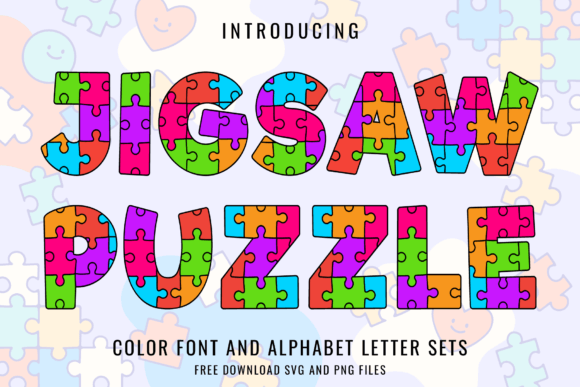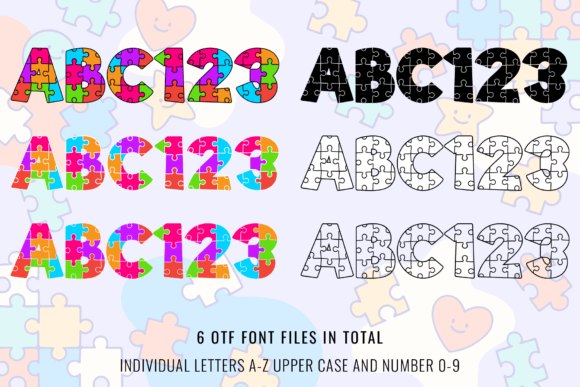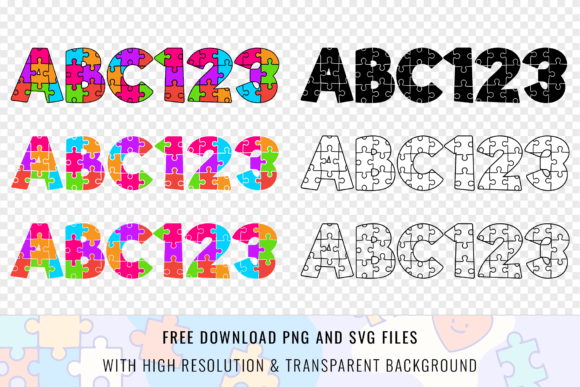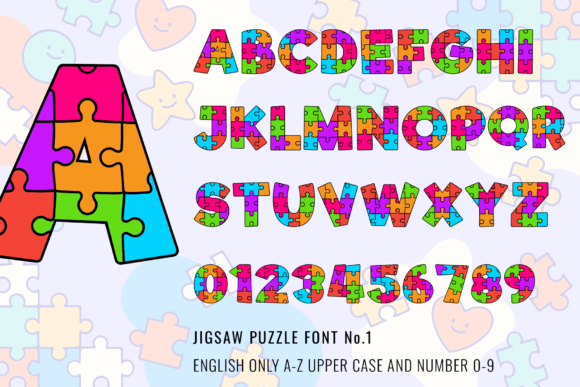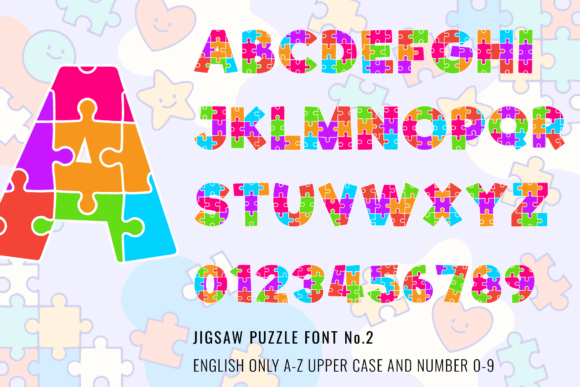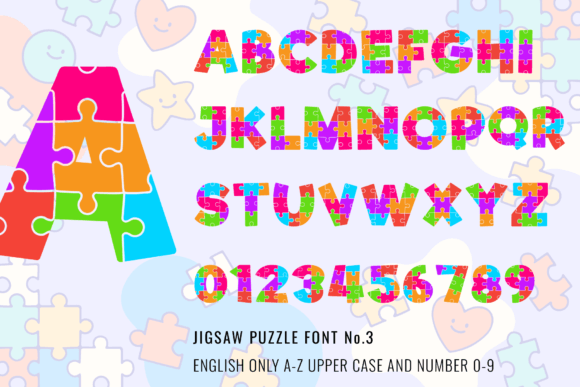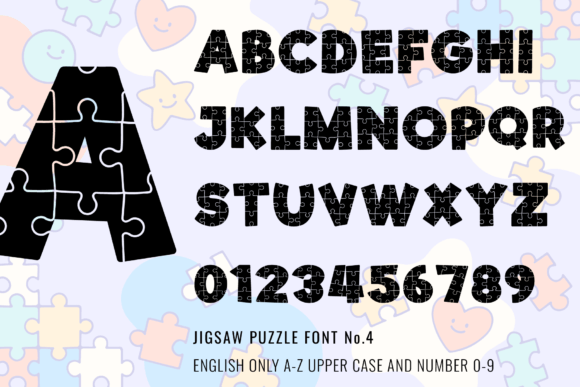
The Fun Never Ends with the Jigsaw Puzzle Font
Have you ever stared at a blank canvas, unsure of where to start, but suddenly a spark of creativity hits you? Maybe it’s the sound of kids giggling in the background or the smell of freshly brewed coffee that gets those creative juices flowing. Whatever it is, we’re here to help you turn that spark into a masterpiece with the Jigsaw Puzzle Font.
This playful color font is designed to bring a smile to your face and a touch of whimsy to your designs. With its fun and quirky style, the Jigsaw Puzzle Font is perfect for kids’ projects, t-shirts, book designs, restaurant menus, blog writing, and even greeting cards. Whether you’re a seasoned designer or a creative enthusiast, this font is sure to bring a fresh and casual touch to your work.
Jigsaw Puzzle Font Key Features
- Font Family: Jigsaw Puzzle Font is a unique, hand-drawn font with a puzzle piece-inspired design.
- Character Set: Includes a wide range of characters, including uppercase and lowercase letters, numbers, and punctuation marks.
- Unique Characteristics: The font’s puzzle piece design creates a visually interesting and engaging effect, perfect for creative projects and designs that require a unique touch.
Jigsaw Puzzle Font Review
I must say, I’m intrigued by the unique concept of the Jigsaw Puzzle Font. At first glance, it seems like a fun and playful way to present text. Here’s my honest review:
- The font’s use of puzzle pieces as characters is clever and visually appealing.
- The font is highly customizable, allowing users to adjust the size, color, and style of the puzzle pieces.
- The font is suitable for a wide range of applications, from branding and advertising to educational materials and children’s books.
- The font may not be suitable for formal or professional settings, as it may come across as too playful or immature.
- The font may be difficult to read at small sizes or in low-light conditions, as the puzzle pieces can become blurry or hard to distinguish.
- The font may not be compatible with all operating systems or devices, as it relies on advanced vector graphics and rendering capabilities.
While the Jigsaw Puzzle Font is a unique and creative solution for certain applications, it may not be the best choice for every project. I would recommend it for projects that require a playful and engaging visual style, but with careful consideration of the limitations and potential drawbacks. With some careful planning and execution, the Jigsaw Puzzle Font can be a real showstopper.
The Jigsaw Puzzle Font is perfect for:
- Creating a vintage or distressed look.
- Adding a unique touch to your designs.
- Creating a playful or whimsical atmosphere.